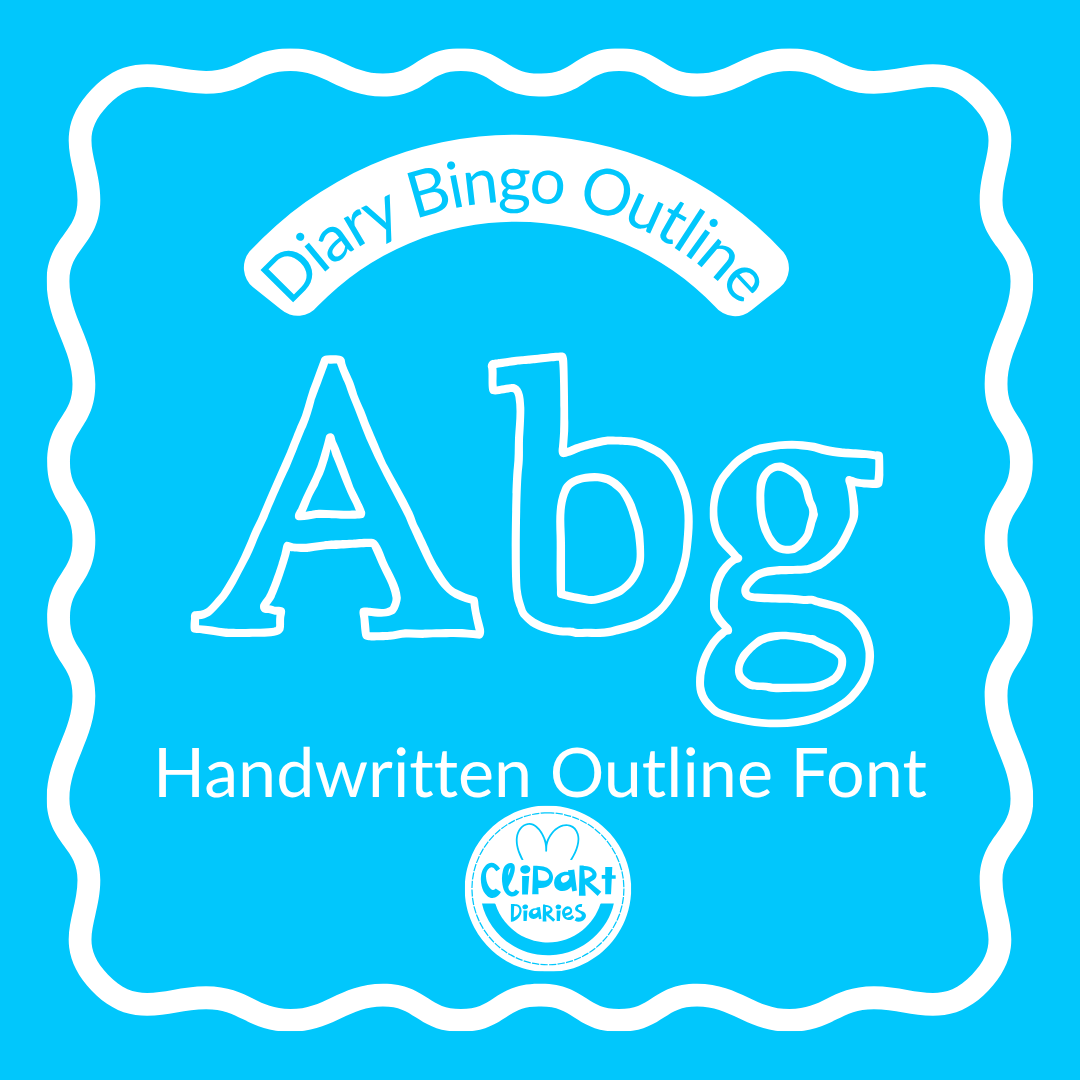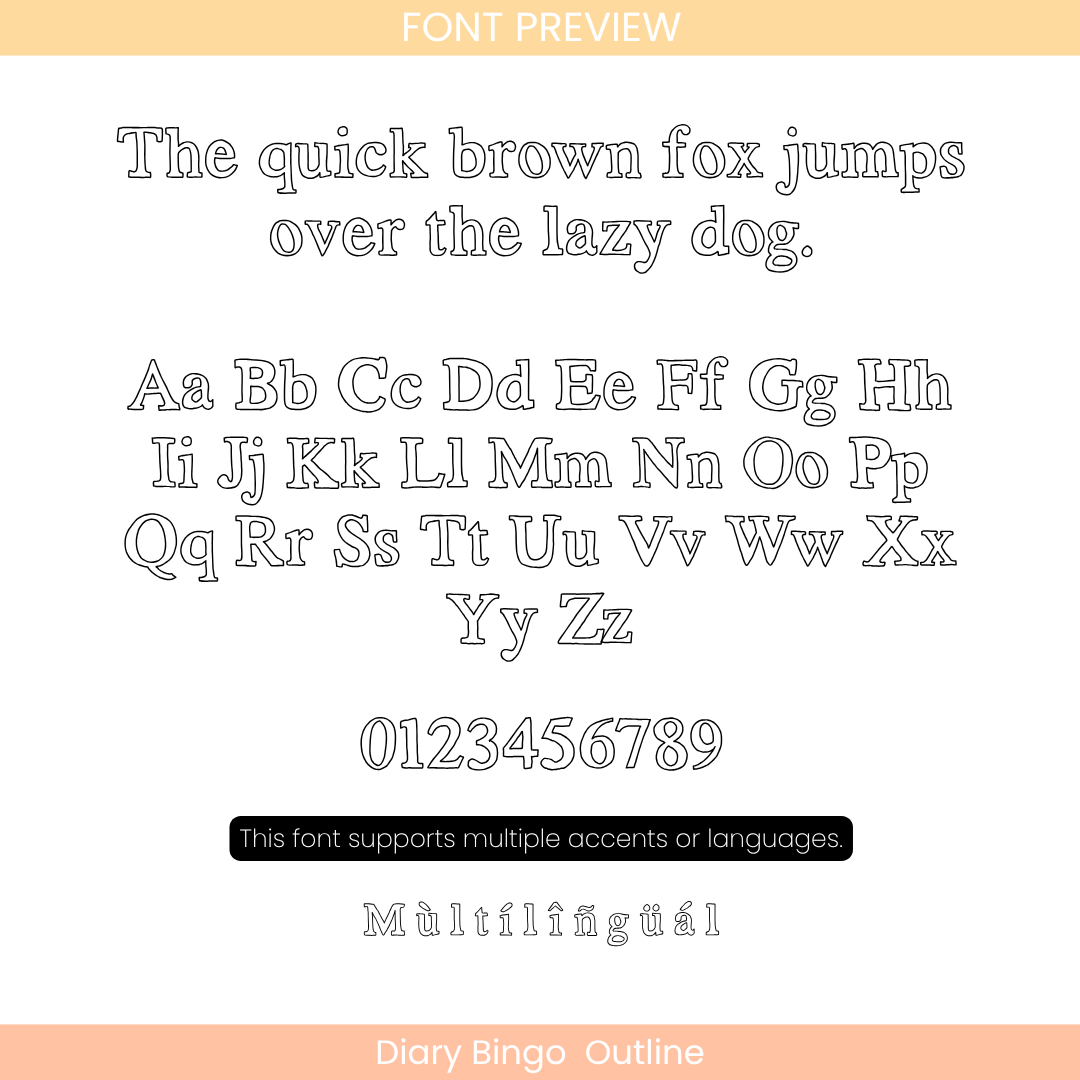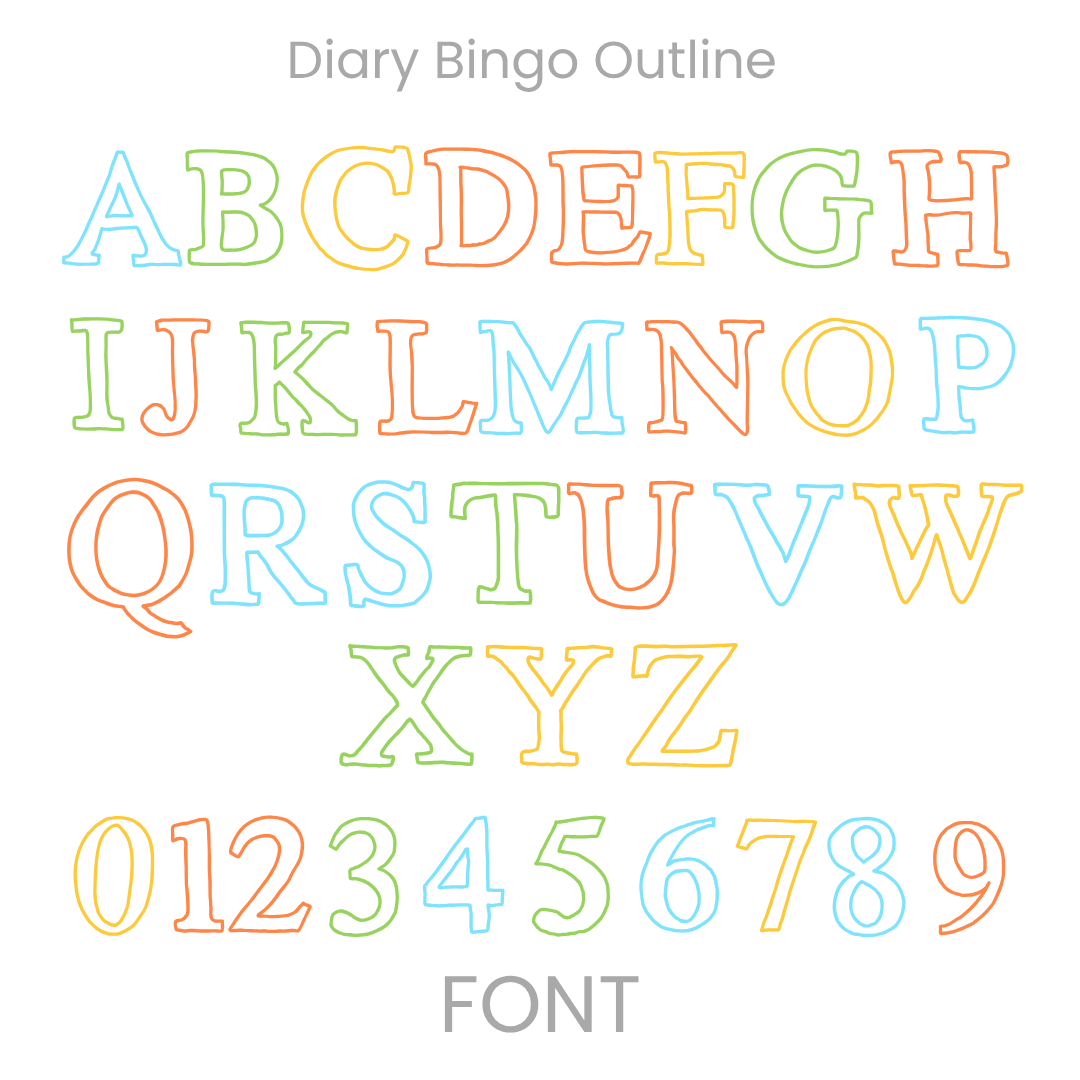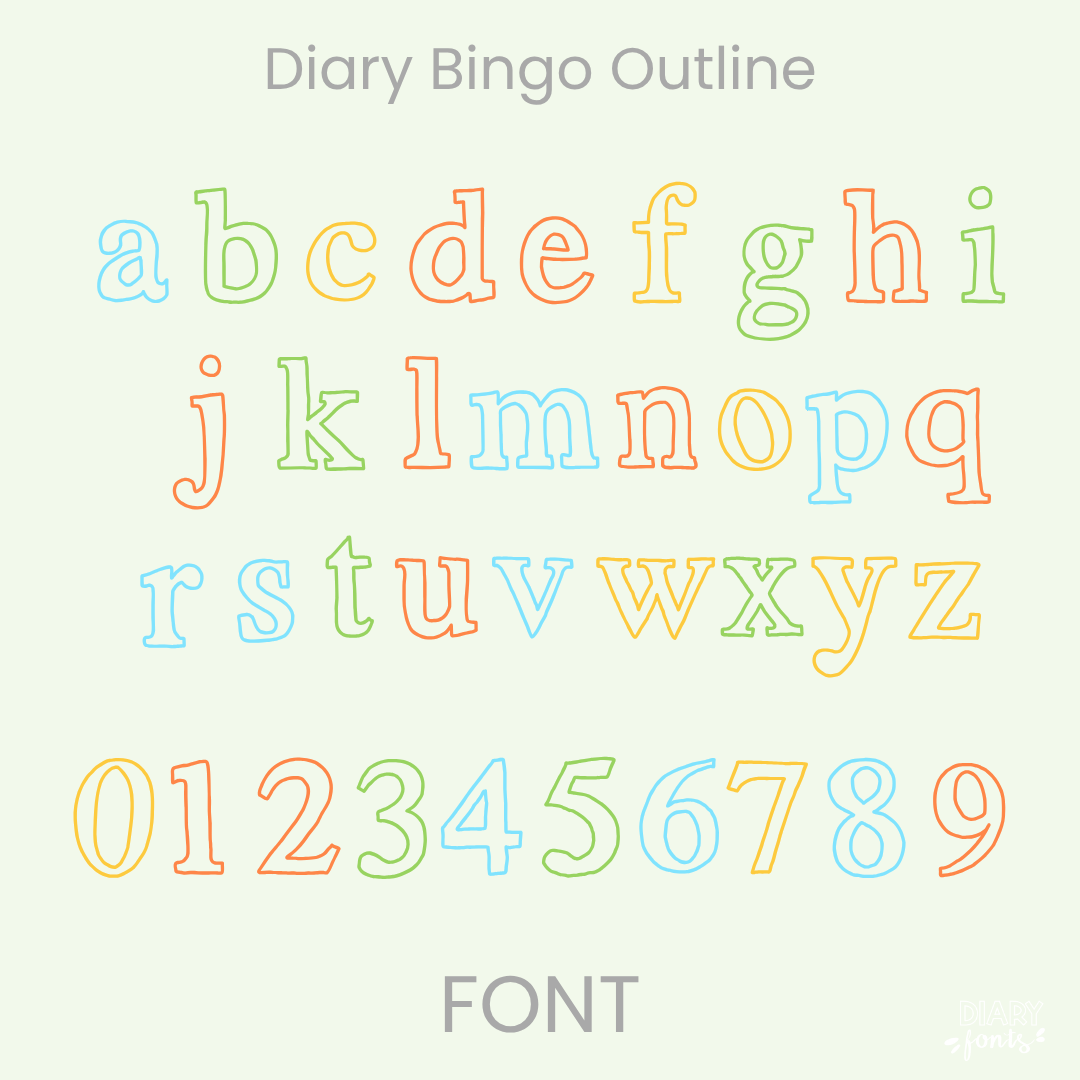
The Diary Bingo Outline is a creative handwritten outline font designed to add a bold, decorative, and artistic touch to your digital resources and classroom materials.
Give your designs an eye-catching edge with Diary Bingo Outline, a stylish handwritten outline font that combines structured letterforms with a playful, hand-drawn feel. This versatile typeface features a complete set of uppercase and lowercase letters, numbers 0–9, and full multi-language support for various accents, making it perfect for global educational resources. It is specifically optimized for seamless compatibility with Canva, MS Office, and Adobe Apps, as well as popular iPad tools like GoodNotes and Procreate. Whether you are creating striking classroom headers, coloring worksheets, or aesthetic digital planners, Diary Bingo Outline offers a polished, professional look that is ideal for both personal and commercial use.